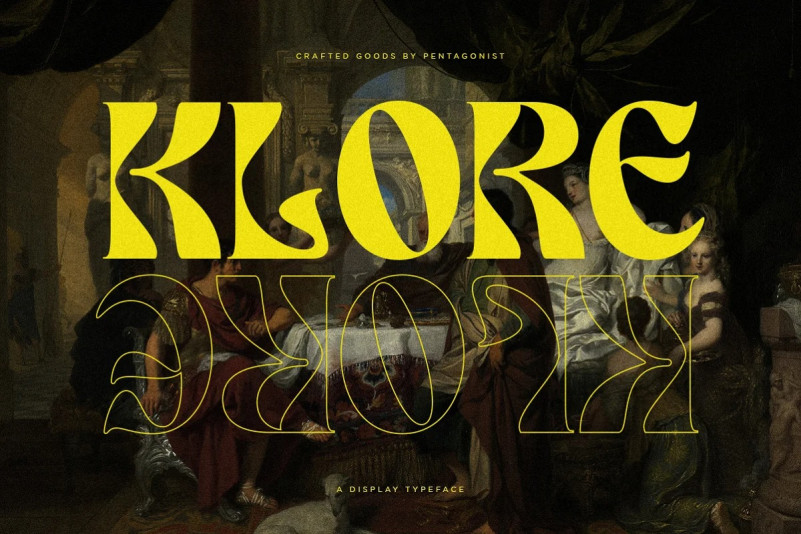
Klore Font
Looking for a unique, stylish, and fun font for your next project? Introducing Klore Vintage Font is a vintage display character inspired by retro style.